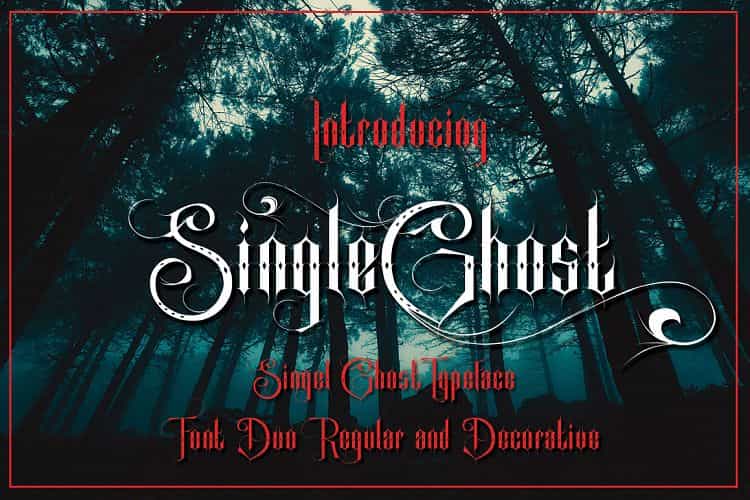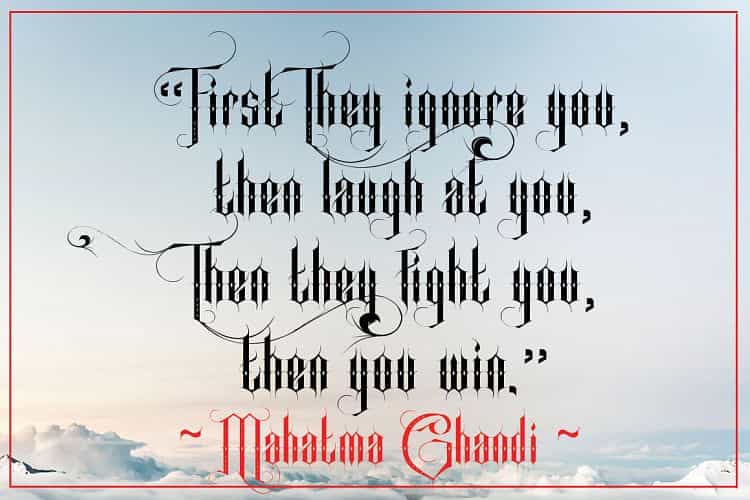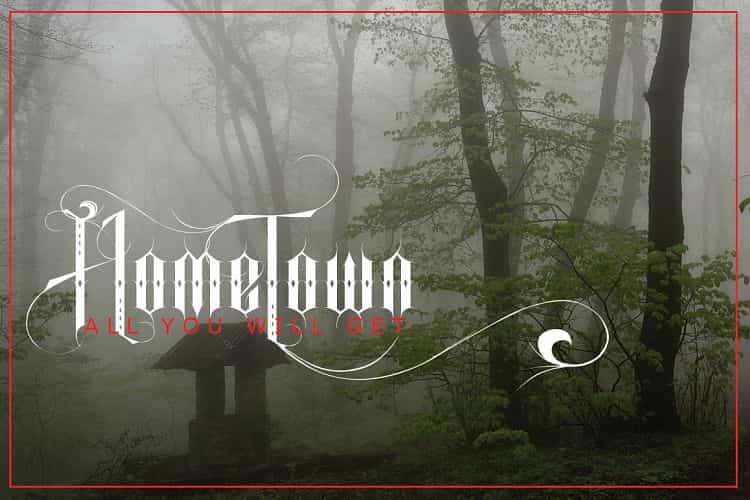
This font was draw by hand and has a contemporary and unique calligraphy look and the style of writing looks very natural and supports many languages. The font Singel Ghost Calligraphy, serif, and combination included in the file font.